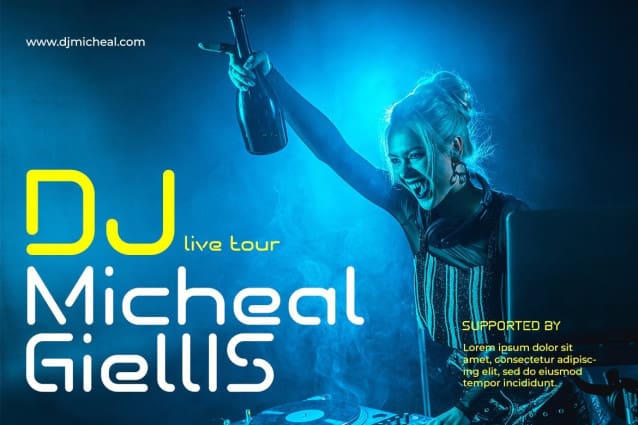
Shuttle-X Font
Shuttle-X Font a futuristic font designed for the music industry. SHUTTLE With its bold and striking style, SHUTTLE . Whether you’re a musician, DJ, or music producer, it is the font you need to make your music stand out in a crowded marketplace.
The SHUTTLE Its neon-inspired color palette also gives it a distinct, futuristic look that will attract attention.